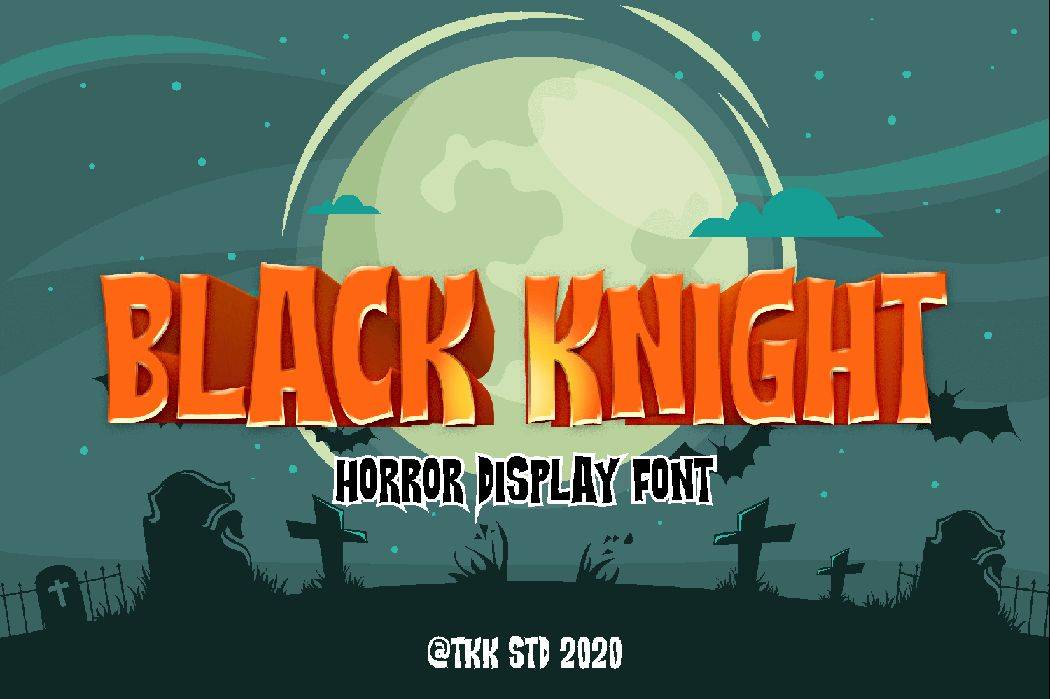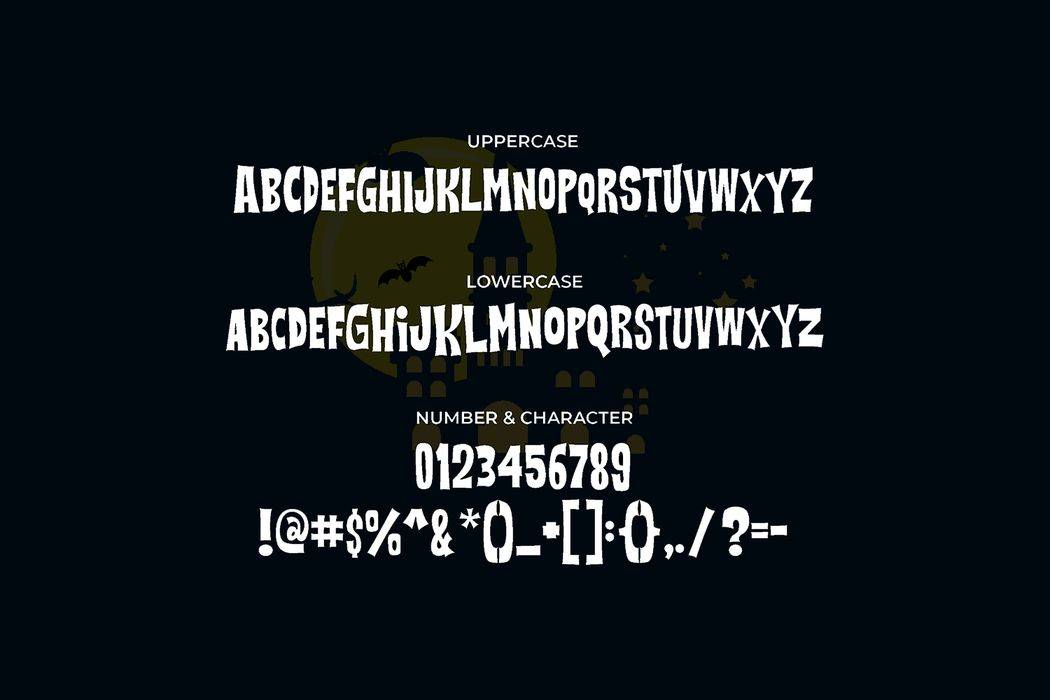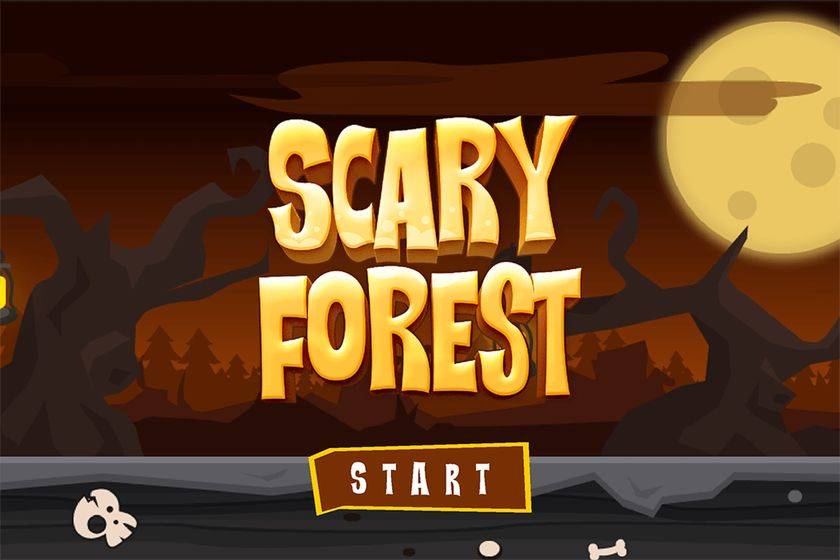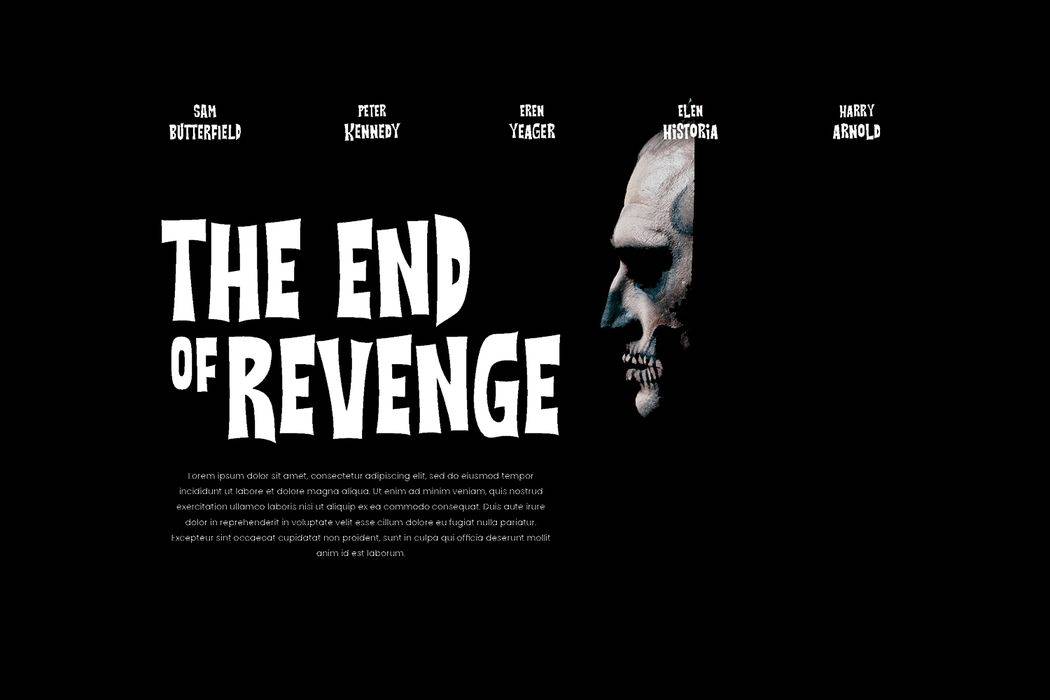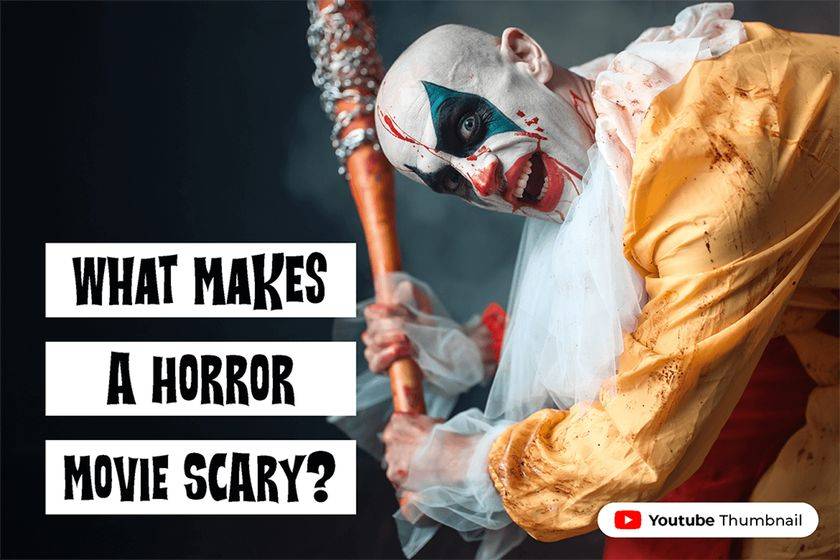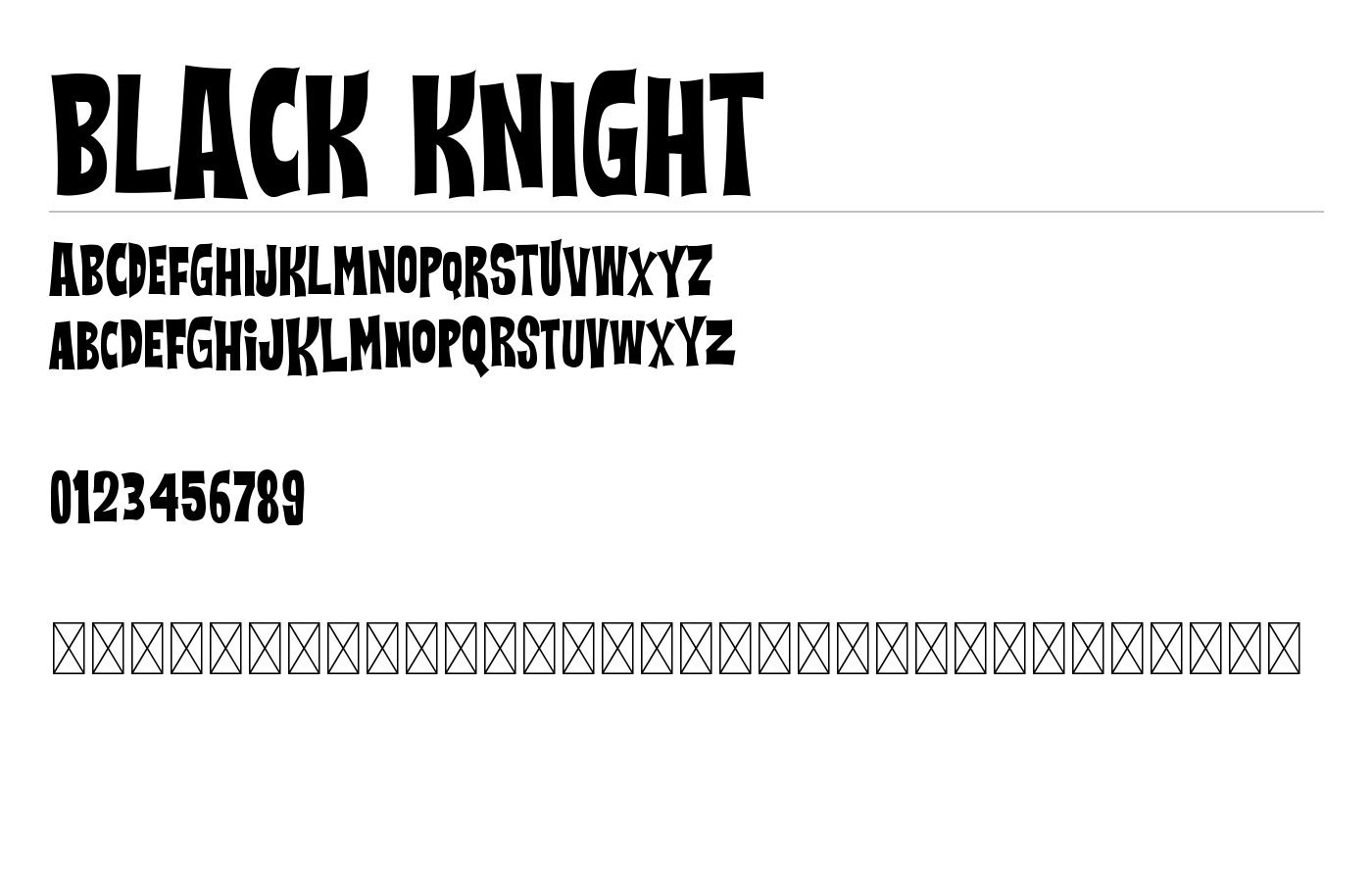
Black Knight is a bold, condensed sans serif font with playful, slightly irregular letterforms that add a quirky, adventurous vibe. Its tall, narrow characters with uneven stroke widths make it perfect for eye-catching headlines, logos, and creative projects that want to convey fun and energy. This font works well in contexts where a unique, informal style is desired to stand out and draw attention.
Black Knight Font
About Black Knight Font